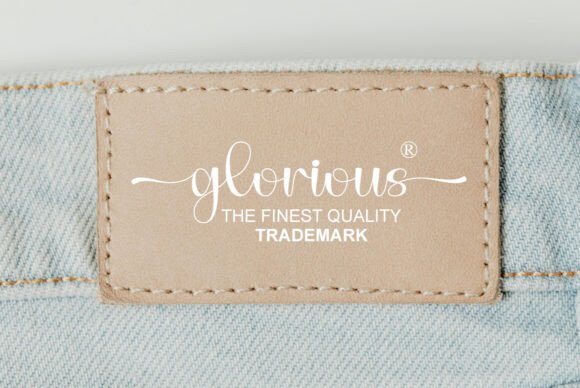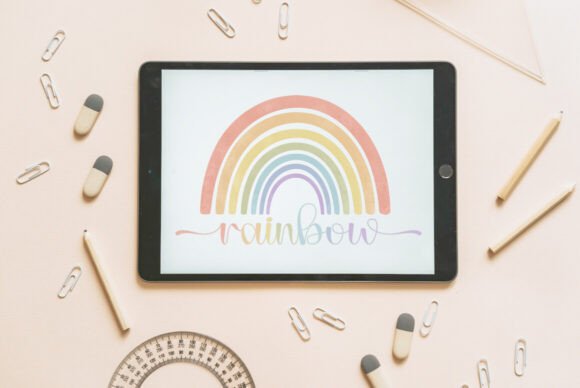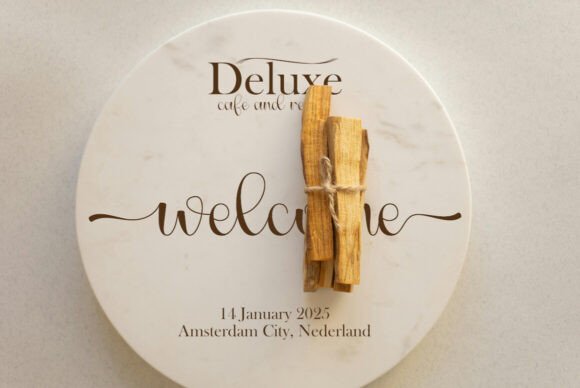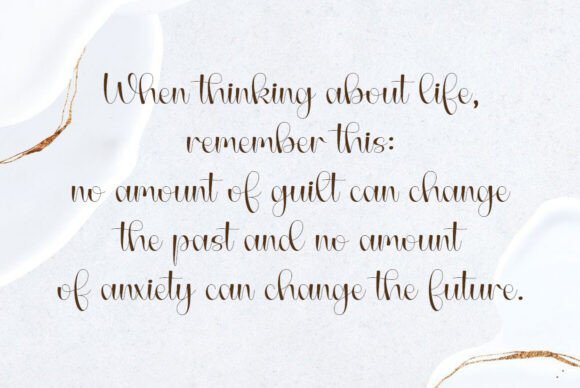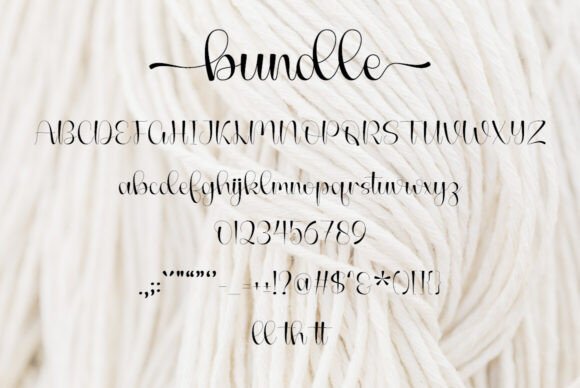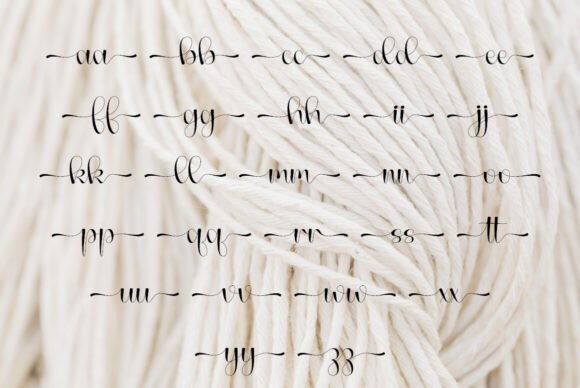
Introducing Bundle Font: Elevate Your Designs with Elegance and Charm
In the world of typography, a well-crafted font can make all the difference in transforming a design from ordinary to extraordinary. Bundle Font is a stunning handwritten script font that embodies elegance, charm, and sophistication. With its flowing, graceful curves, this beautiful font is perfect for designers and crafters looking to add a personal touch to their projects.
The Beauty of Bundle Font
Bundle Font boasts delicate strokes that bring warmth and creativity to any design. Its stylish and refined appearance makes it an excellent choice for a variety of applications, including invitations, logos, branding, and more. Whether you’re working on a wedding invitation, a business logo, or a social media graphic, Bundle Font is sure to elevate your design to the next level.
Key Features of Bundle Font
- Elegant and Refined: Bundle Font features flowing, graceful curves that exude elegance and sophistication.
- Handwritten Script: This beautiful font has a personal, handwritten feel that’s perfect for adding a touch of warmth and personality to your designs.
- Versatile: Bundle Font is suitable for a wide range of applications, including invitations, logos, branding, and more.
- Easy to Read: Despite its elegant appearance, Bundle Font is easy to read, making it perfect for body text and headlines.
Bundle Font is a versatile font that’s perfect for designers and crafters alike. Whether you’re working on a client project or creating something for your own brand, this font is sure to impress. Here are just a few ways you can use Bundle Font:
- Wedding Invitations: Add a touch of elegance to your wedding invitations with Bundle Font.
- Logos and Branding: Use Bundle Font to create a sophisticated logo or brand identity for your business.
- Social Media Graphics: Elevate your social media graphics with Bundle Font’s stylish and refined appearance.
- Stationery and Packaging: Add a personal touch to your stationery and packaging with Bundle Font.
Tips for Using Bundle Font
To get the most out of Bundle Font, here are a few tips to keep in mind:
- Pair with a Sans Serif Font: Pair Bundle Font with a sans serif font for a stylish and modern contrast.
- Use for Headlines and Titles: Use Bundle Font for headlines and titles to add a touch of elegance to your design.
- Experiment with Colors: Experiment with different colors to find the perfect match for your brand or design.
In conclusion, Bundle Font is a beautiful handwritten script font that’s perfect for designers and crafters looking to add a touch of elegance and charm to their designs. With its flowing, graceful curves and delicate strokes, this font is sure to elevate your projects to the next level. Whether you’re working on a wedding invitation, a business logo, or a social media graphic, Bundle Font is a versatile and stylish choice that’s sure to impress.